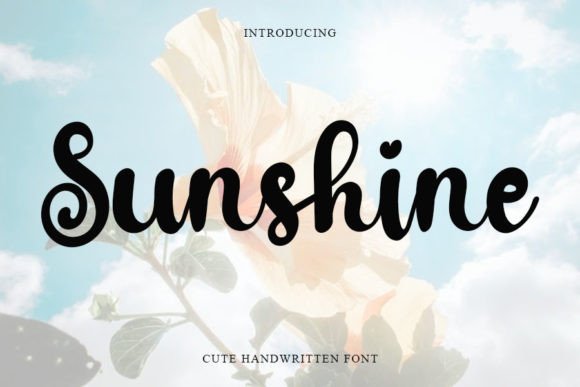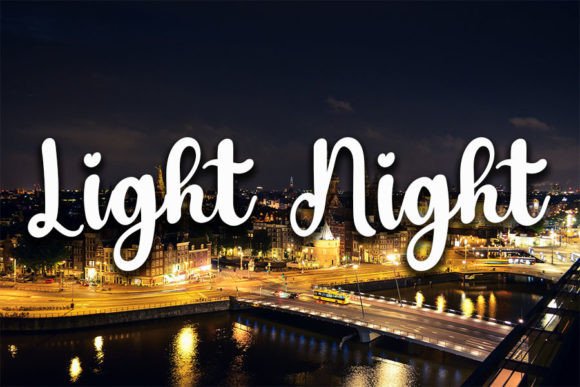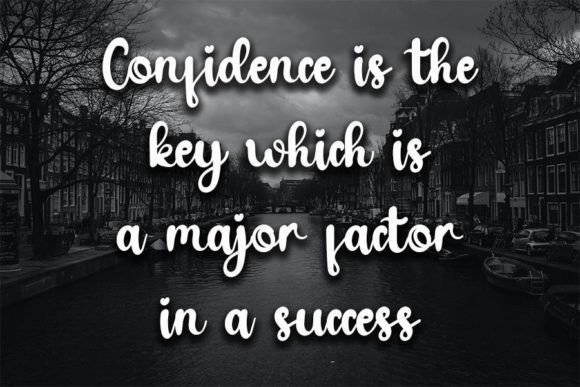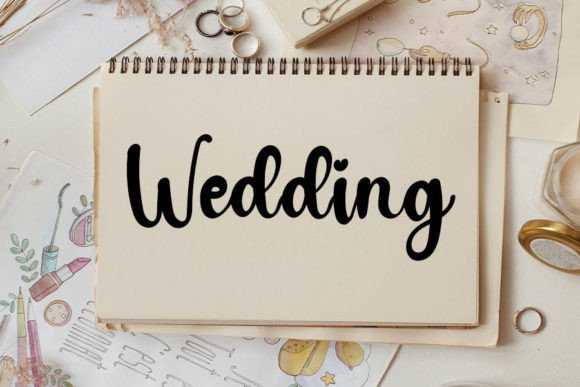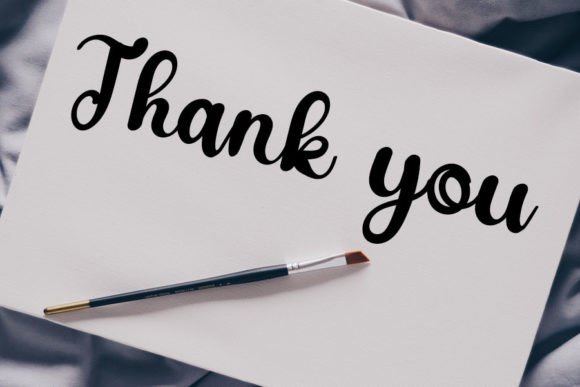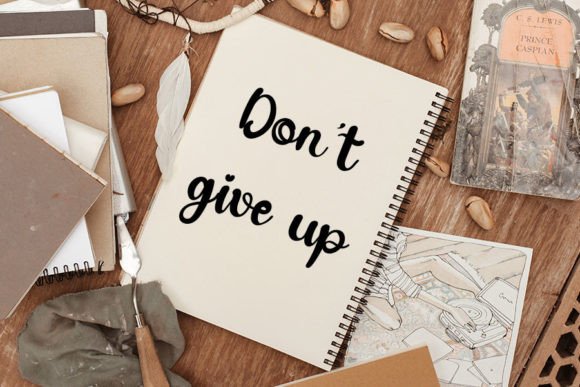
Sunshine Font
A Neat and Elegant Handwritten Font
The Sunshine Font is a neat and beautiful handwritten typeface that adds an elegant touch to any project. Its graceful design and timeless style make it perfect for a wide range of creative applications. Whether you’re working on wedding invitations, logos, advertisements, or social media posts, the Sunshine Font brings a personalized, charming feel to your work, ensuring your designs stand out with sophistication.
Perfect for Wedding Invitations and Special Occasions
The Sunshine Font is ideal for wedding invitations and special occasion designs. Whether you’re designing save-the-dates, invitations, or thank you cards, this font provides a romantic and elegant touch to your stationery. Its flowing, handwritten strokes ensure your designs feel personal, making them perfect for weddings, anniversaries, and other celebratory events.
Great for Logos and Branding
For logos and branding, the Sunshine Font offers a stylish and approachable design. Whether you’re creating a personal brand logo, business branding, or social media graphics, this font ensures your brand feels authentic, memorable, and elegant. Its handwritten appeal adds a unique touch to your identity, making it stand out in a competitive marketplace.
Ideal for Advertisements and Product Packaging
For advertisements and product packaging, the Sunshine Font adds a refined and charming look to your materials. Whether you’re designing product labels, flyers, or advertising posters, this font enhances your designs with a personalized and stylish appeal. Its elegance ensures your products convey a premium and high-end image.
Perfect for Photography and Watermarks
The Sunshine Font is ideal for photography and watermarks. Whether you’re adding a photographer’s signature or custom watermark to your images, this font ensures your text is elegant and distinctive. Its clean, handwritten style makes it perfect for photo albums, portfolios, and other photography-related projects, giving your work a professional and personal touch.
Elegant, Legible, and Versatile
Despite its handwritten style, the Sunshine Font remains legible and versatile. Its well-balanced characters ensure that your text is easy to read, even at smaller sizes or for longer passages. Whether you’re working on headlines, captions, or body text, this font offers the perfect balance of style and clarity, making it suitable for a wide range of creative applications.
Add Charm and Elegance to Your Designs with Sunshine Font
If you’re looking for a neat, elegant, and handwritten font to enhance your designs, the Sunshine Font is the perfect choice. Whether you’re working on wedding invitations, logos, advertisements, or product packaging, this font brings a personalized, timeless touch to your work. Let the Sunshine Font add grace and charm to your creative projects and help them stand out with elegance.